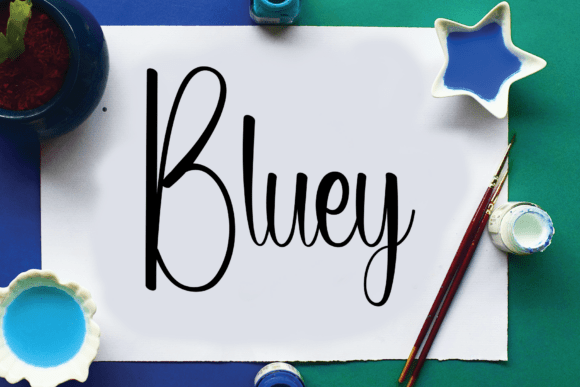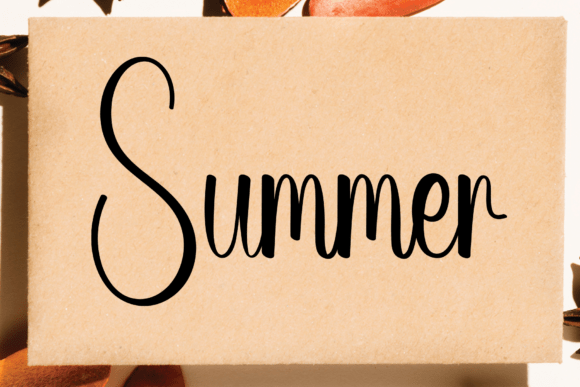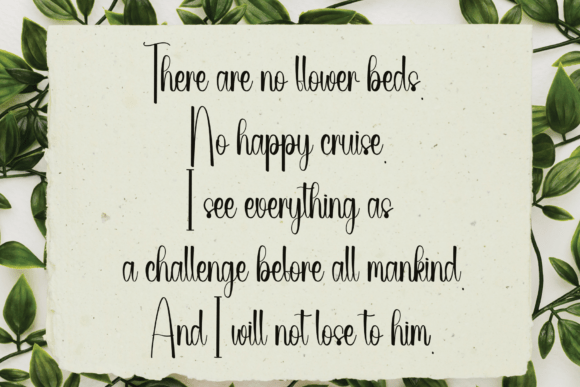
Introduction to Simple Livestyle Font
Simple Livestyle is a handwritten font that looks like it was drawn with a marker.
Having a relaxed and sporty feel, it is very suitable for branding, logos, wedding supplies, greeting cards, fashion, lookbooks, marketing promotions, and whenever you want your design to look luxurious and elegant but still casual .
Key Features of Simple Livestyle Font